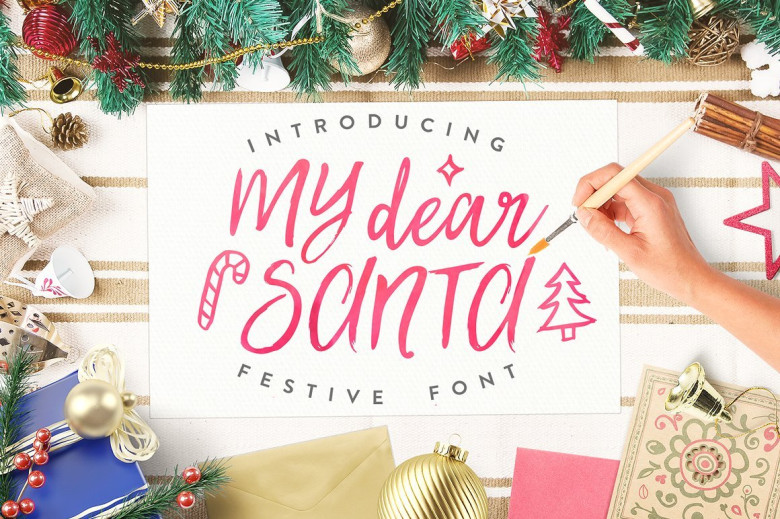
My Dear Santa Script Font
My Dear Santa Script Font designed by Eskimo Creative, this is a premium font, are sold on creativemarket, but it was great, it is free today for download. My Dear Santa – a hand painted typeface, created specially for the Christmas Spirit. With this script you can do so much fun! You can write your own letter to Santa! Isn’t that awesome?…